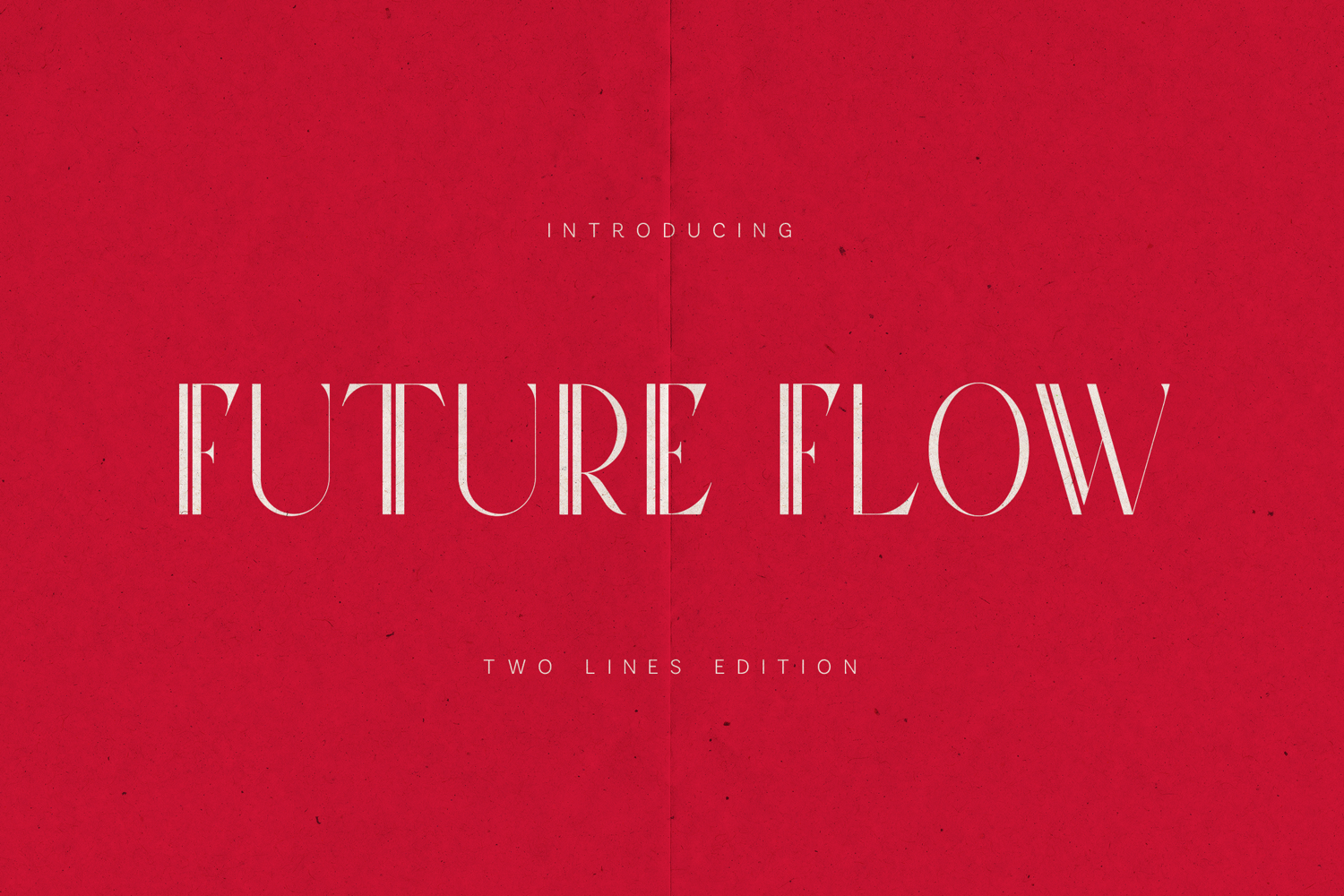
Future Flow Two Lines Serif Font
Future Flow is a modern two-line serif font designed for expressive editorial typography and high-impact visual design. Featuring elegant serif forms paired with a distinctive double-line construction, this typeface delivers a bold, contemporary look with a refined fashion sensibility.
Perfect for fashion editorials, luxury branding, posters, magazines, book covers, logos, and artistic layouts, Future Flow balances sophistication with graphic strength. Its rhythmic strokes and airy structure make it ideal for headlines, statements, and premium display typography.
✦ Perfect For- Fashion & luxury branding
- Editorial & magazine design
- Posters & headlines
- Book covers & visual storytelling
- Logos & creative identities
- Artistic and modern layouts